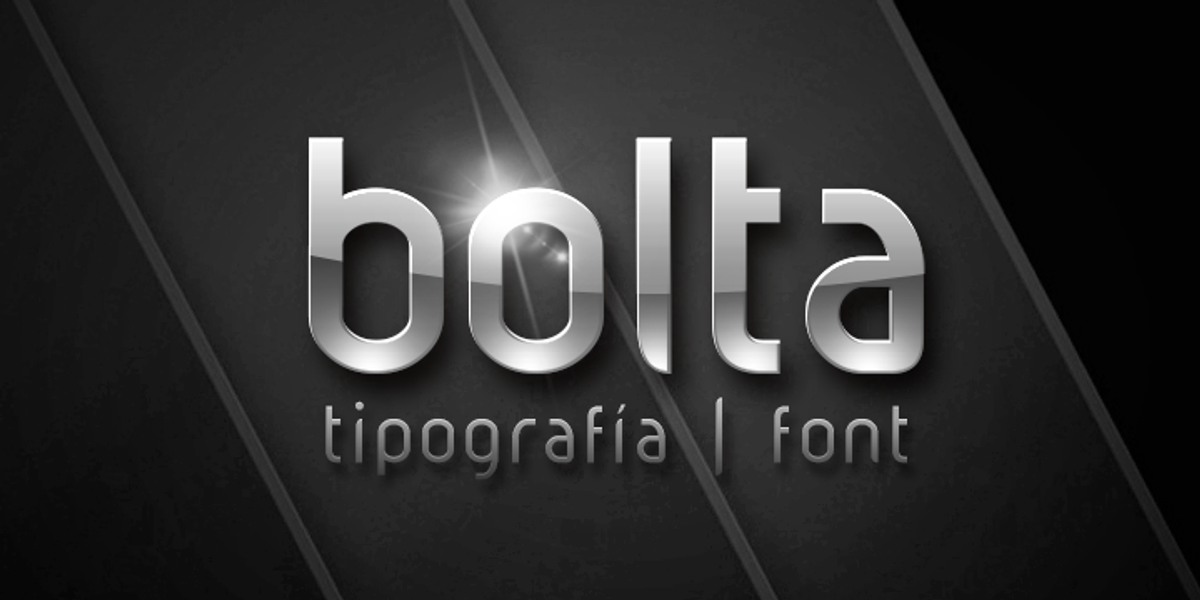
Bolta
Bolta is a modern, clean, and elegant typeface. It has four weights that help improve writing, highlighting important words very well. Although it is not a typeface for long paragraphs, it is recommended for large-format visual elements such as flyers, banners, or logos.